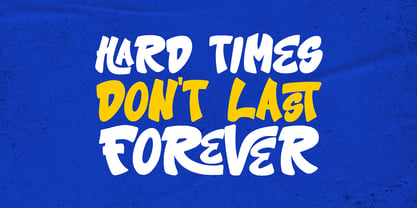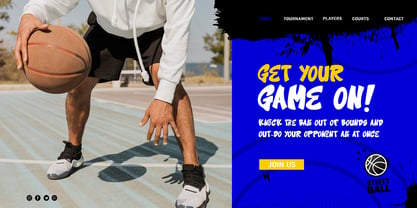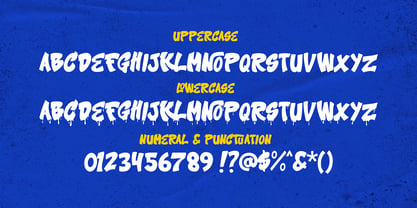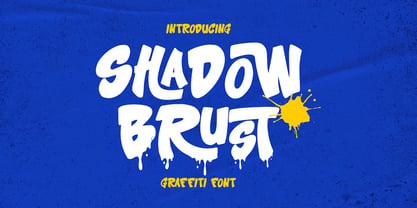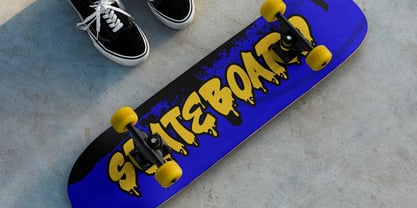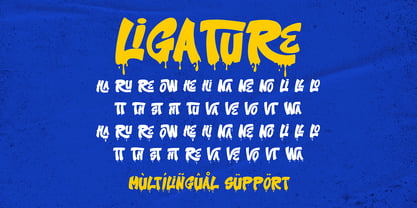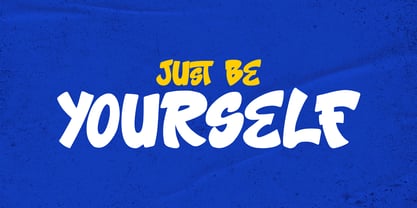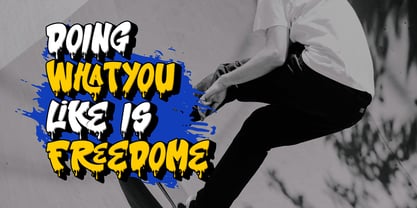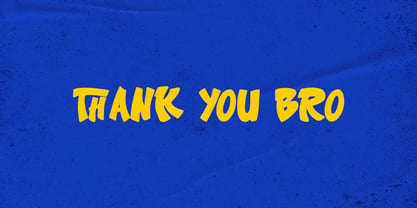
Shadow Brust
by Sipanji21
The Shadow Brust Font Family was designed by Sipanji and published by Sipanji21. Shadow Brust contains 1 styles. More about this family
Shadow Burst is a bold and expressive decorative graffiti font featuring two unique styles: solid and dripping. Designed to bring an urban and edgy vibe to your projects, this font captures the raw energy of street art. It also includes ligatures that enhance the flow and power of your text, making it perfect for posters, album covers, streetwear branding, and any design that demands a rebellious and artistic touch.